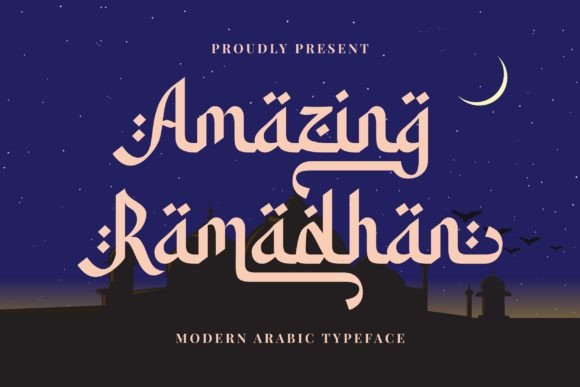
Welcome to the realm of "Amazing Ramadhan," an Arabic-style script font that embodies the essence of authenticity and effortless style. Crafted with precision and an eye for detail, this font family exudes a captivating charm that will enchant your designs.
With its natural and effortless flow, "Amazing Ramadhan" seamlessly adapts to a myriad of projects. Unleash your creativity and adorn your designs with an evocative touch that will captivate your audience. The sky's the limit as you weave words into enchanting tales or craft designs that radiate cultural warmth.
Our commitment to providing you with unparalleled flexibility is reflected in the PUA encoding of "Amazing Ramadhan." Access a treasure trove of glyphs and ligatures at your fingertips, unlocking endless possibilities for customization. Let your designs soar with the freedom to express your unique style effortlessly.
Embark on a creative journey with "Amazing Ramadhan," where your imagination knows no bounds. Experience the captivating essence of Arabic calligraphy and infuse your designs with a touch of authenticity that will resonate with your audience.